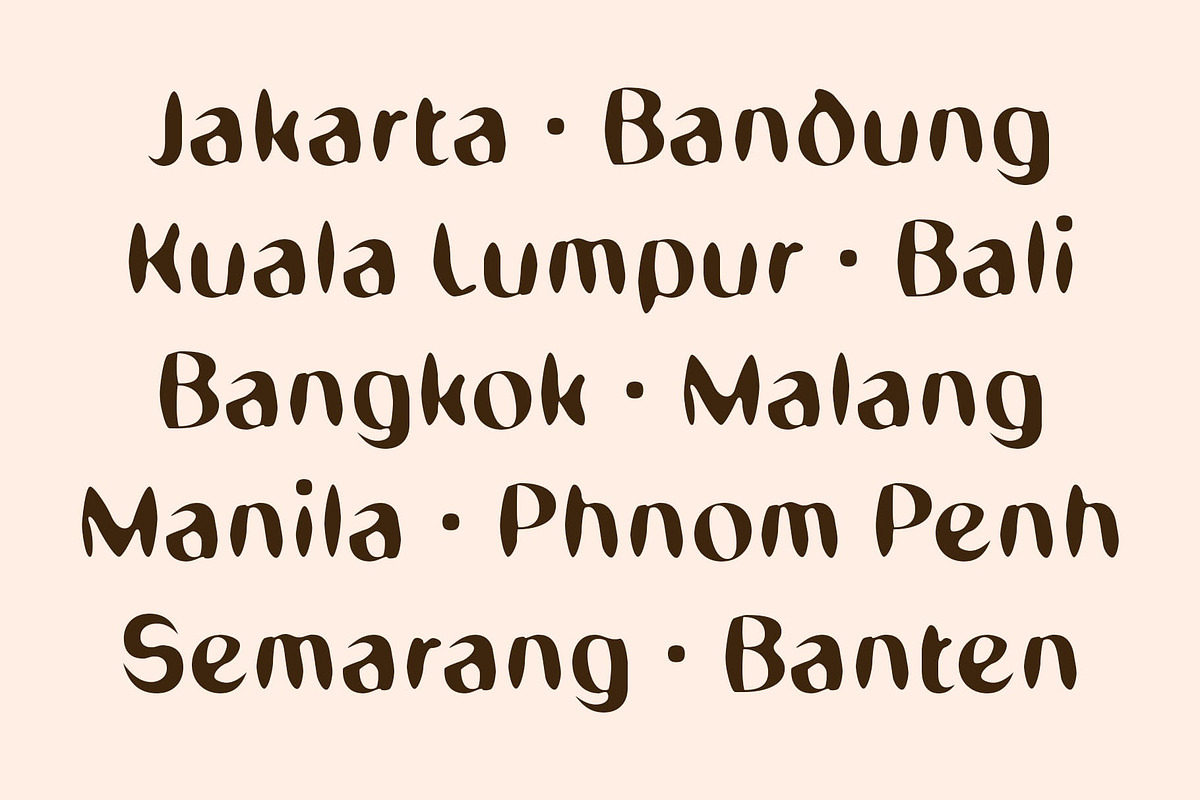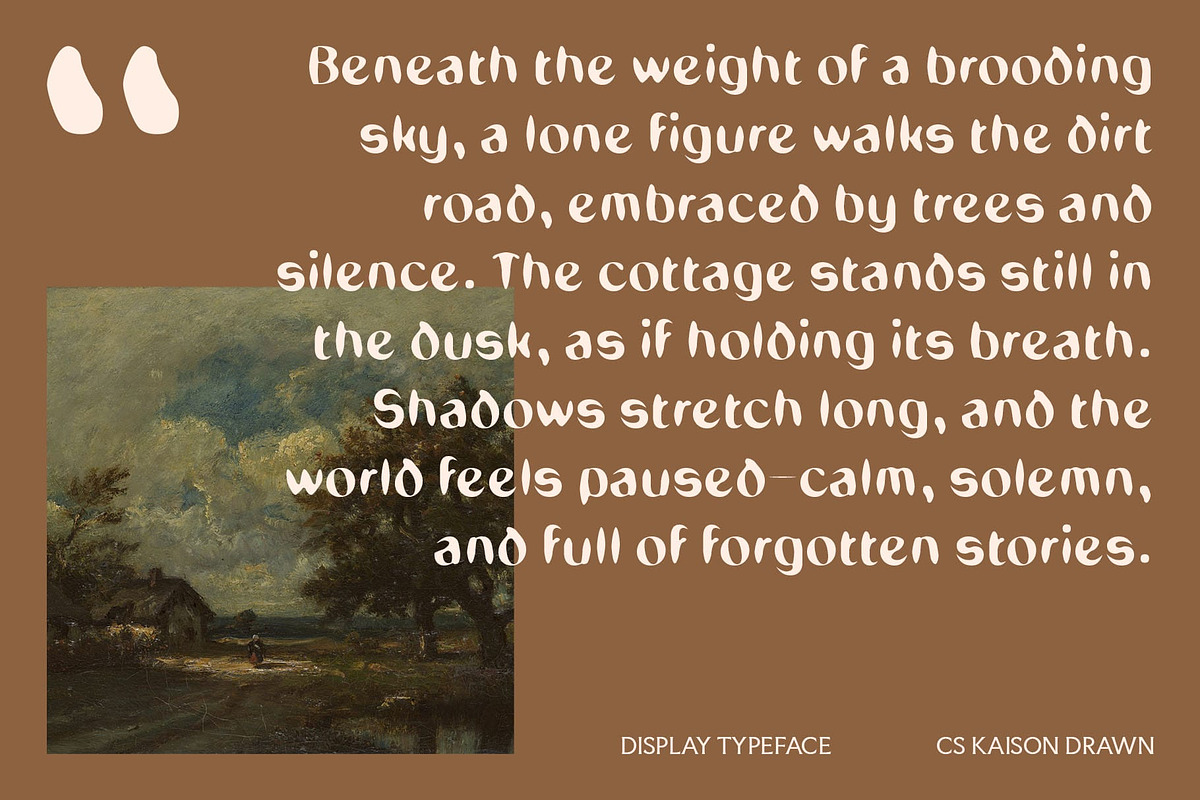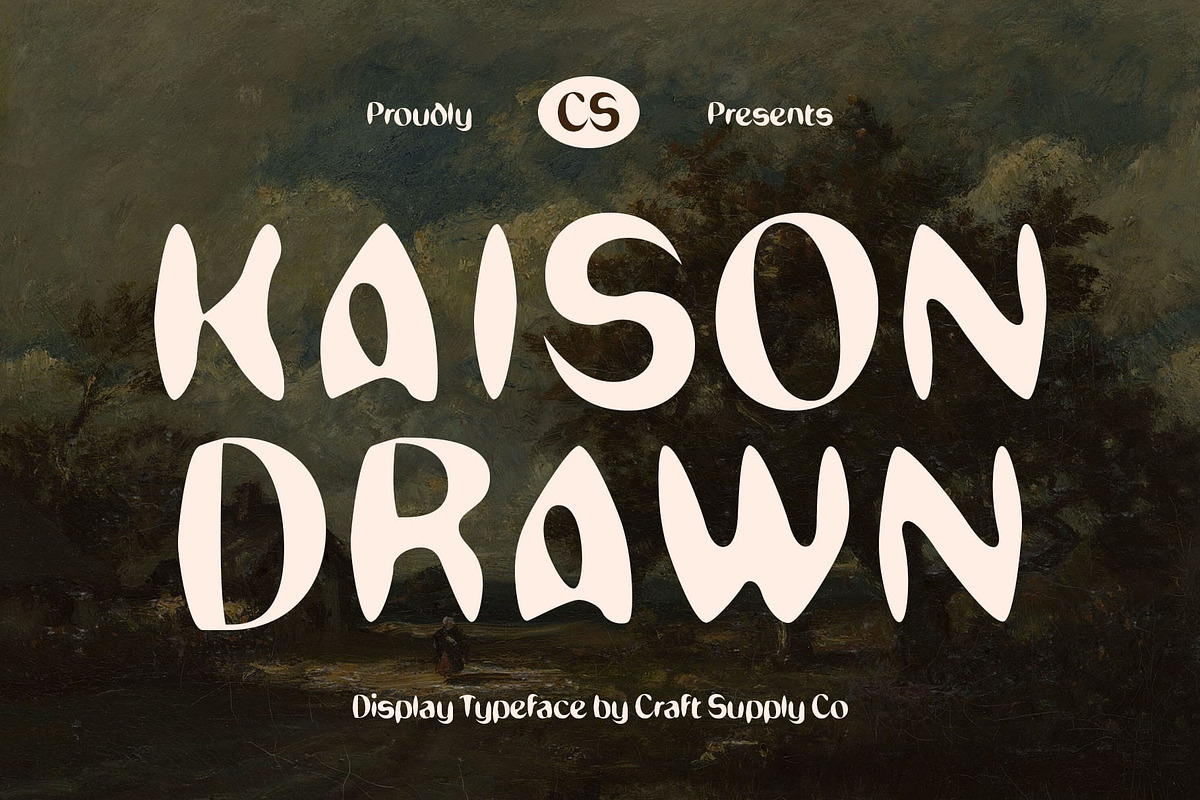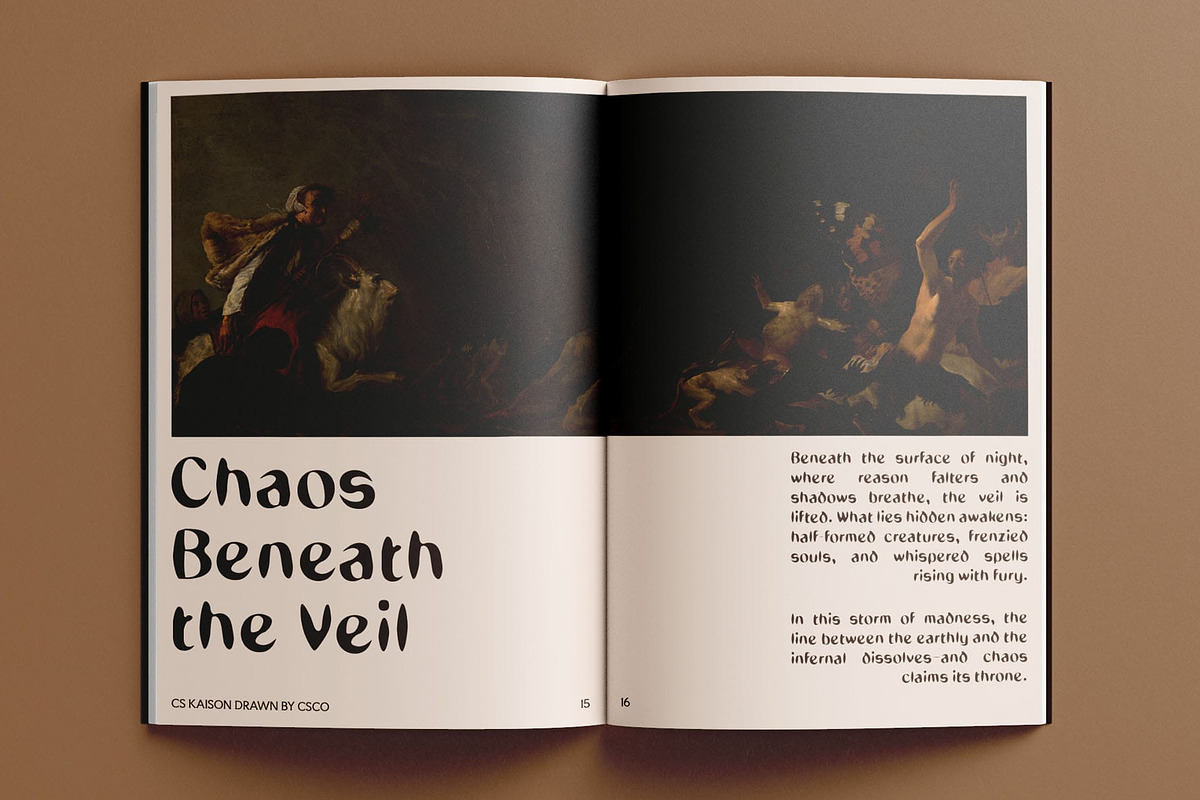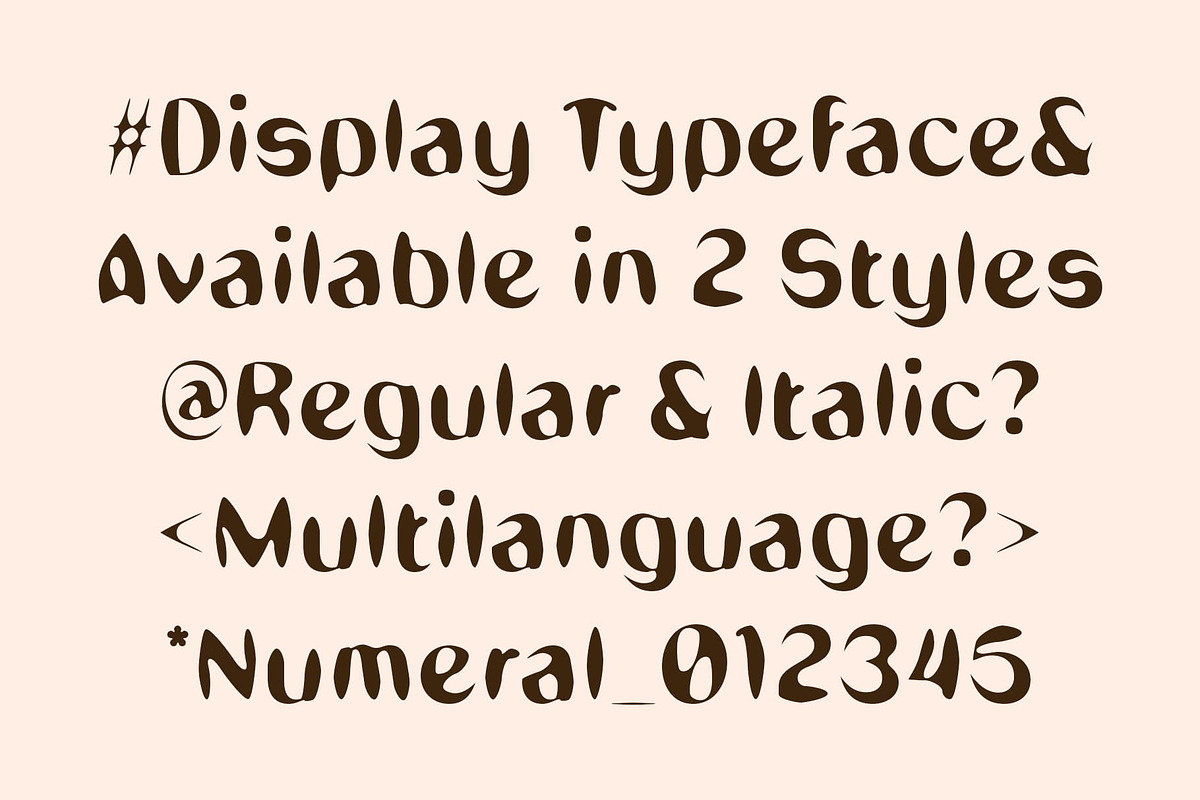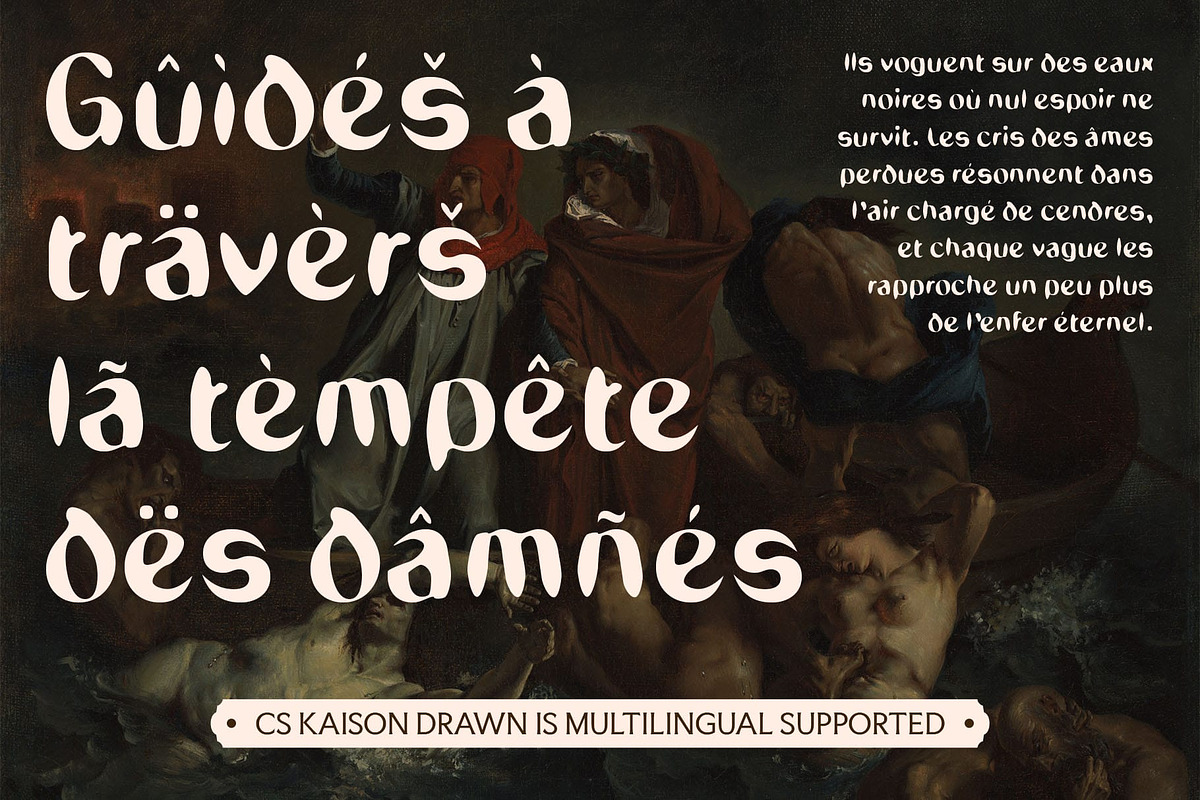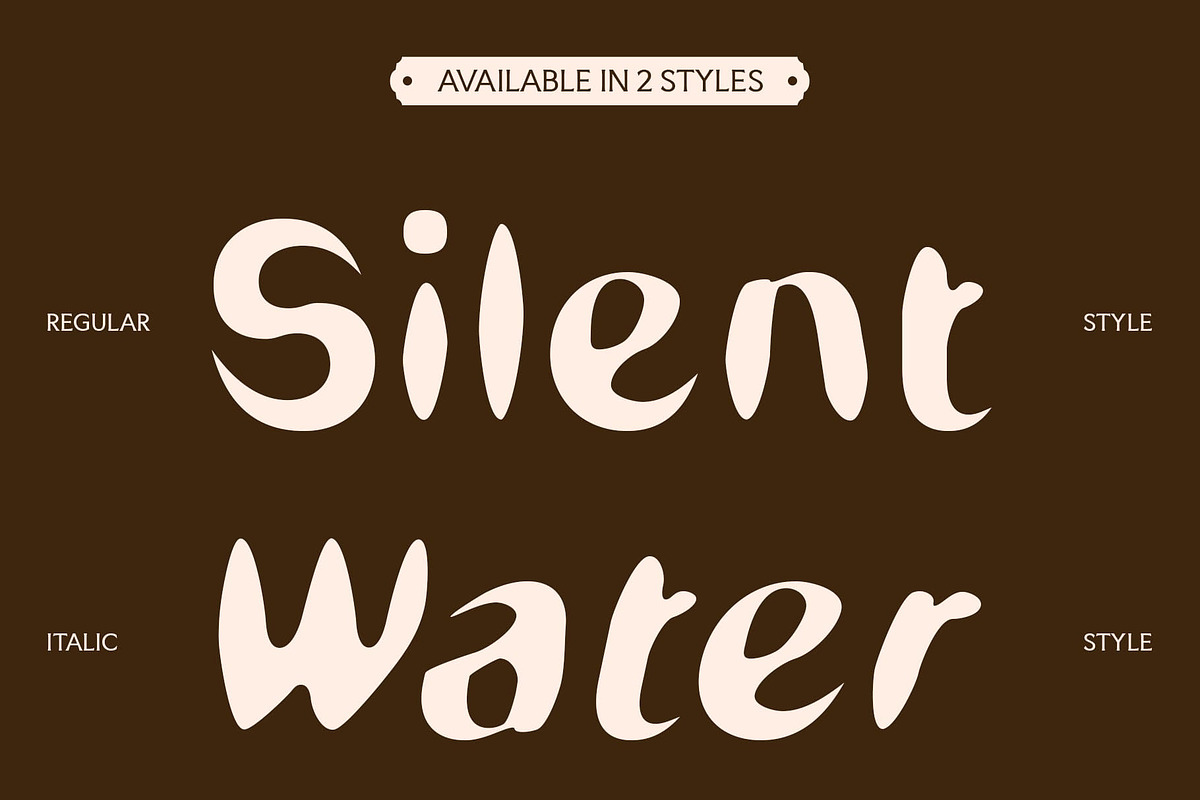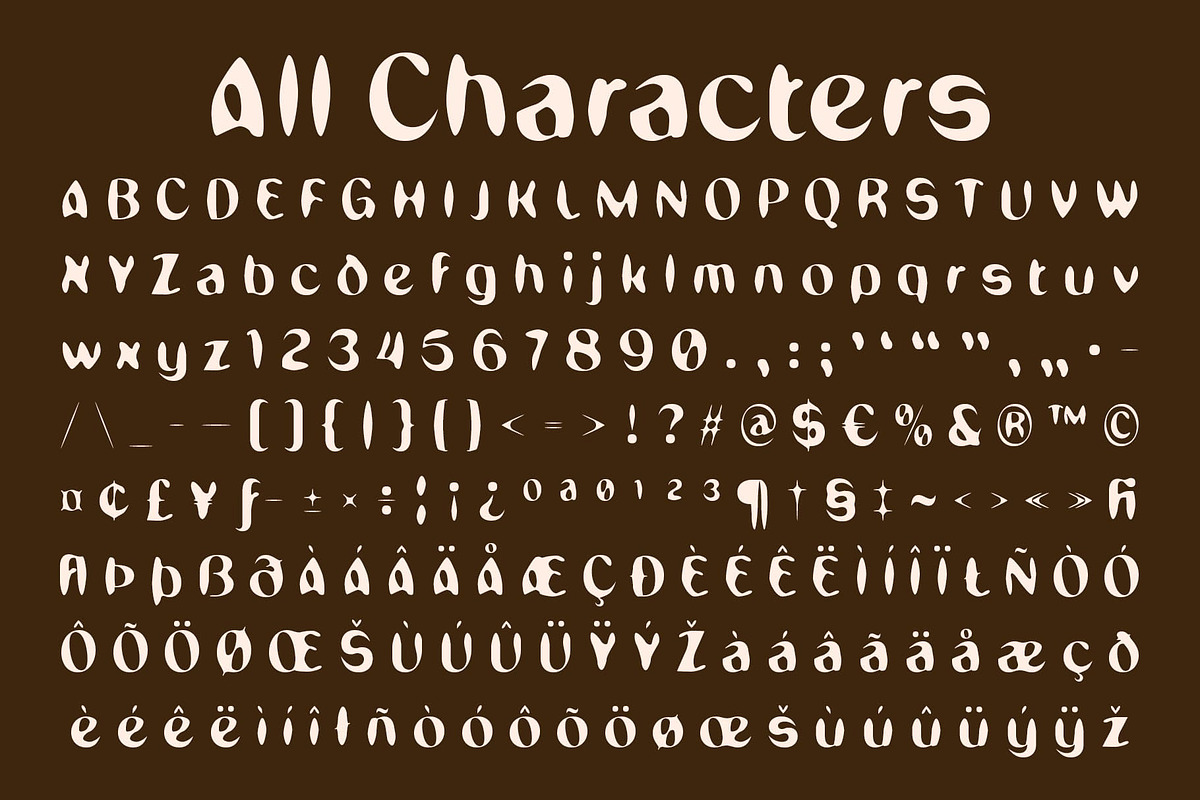
CS Kaison Drawn
CS Kaison Drawn – A Bold Modern Gothic Display Font with a Handcrafted Edge
Dramatic Structure with Artistic Flair This is a classic display typeface that blends the timeless essence of gothic lettering with a modern boldness. Its letterforms are tall, strong, and assertive, marked by sharp contours, high contrast, and dramatic silhouettes that naturally command attention.
Expressive Texture Meets Structured Form What elevates this mysterious font beyond typical gothic fonts is its drawn effect—a subtle handcrafted texture that gives each character a slightly rough, expressive, and organic appearance. This textural irregularity softens the otherwise rigid forms, imbuing the typeface with a raw, artistic energy.
Powerful Visual Identity for Bold Statements This font thrives in contexts that require intensity and presence. Whether used for album covers, movie posters, book titles, or branding that leans toward the dramatic, this artistically powerful font delivers a memorable and distinctive tone. It evokes a sense of mystery, strength, and attitude, while the handcrafted quality makes it feel more human and expressive.
Versatile, Yet Unapologetically Bold Despite its historical roots and elaborate design, this dramatic font remains surprisingly flexible. Its modernized structure makes it suitable for editorials, fashion layouts, promotional materials, and digital media that seek to balance elegance and edge.